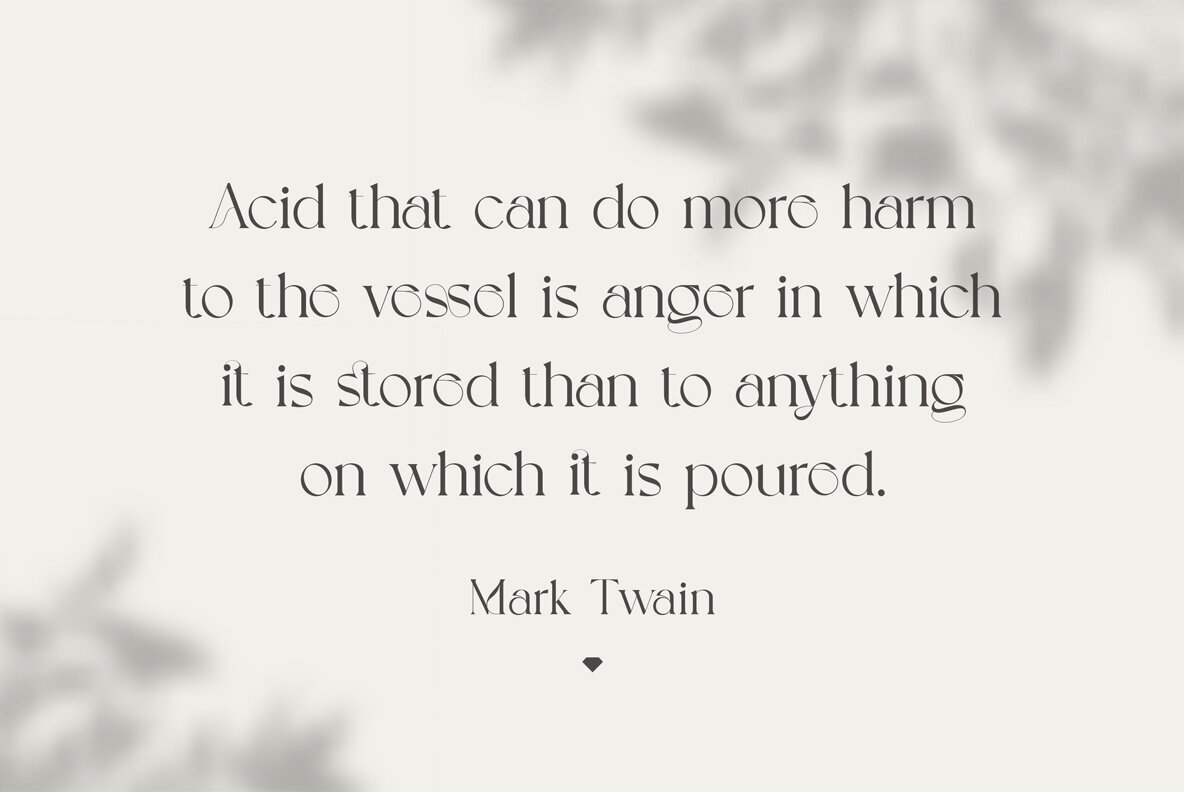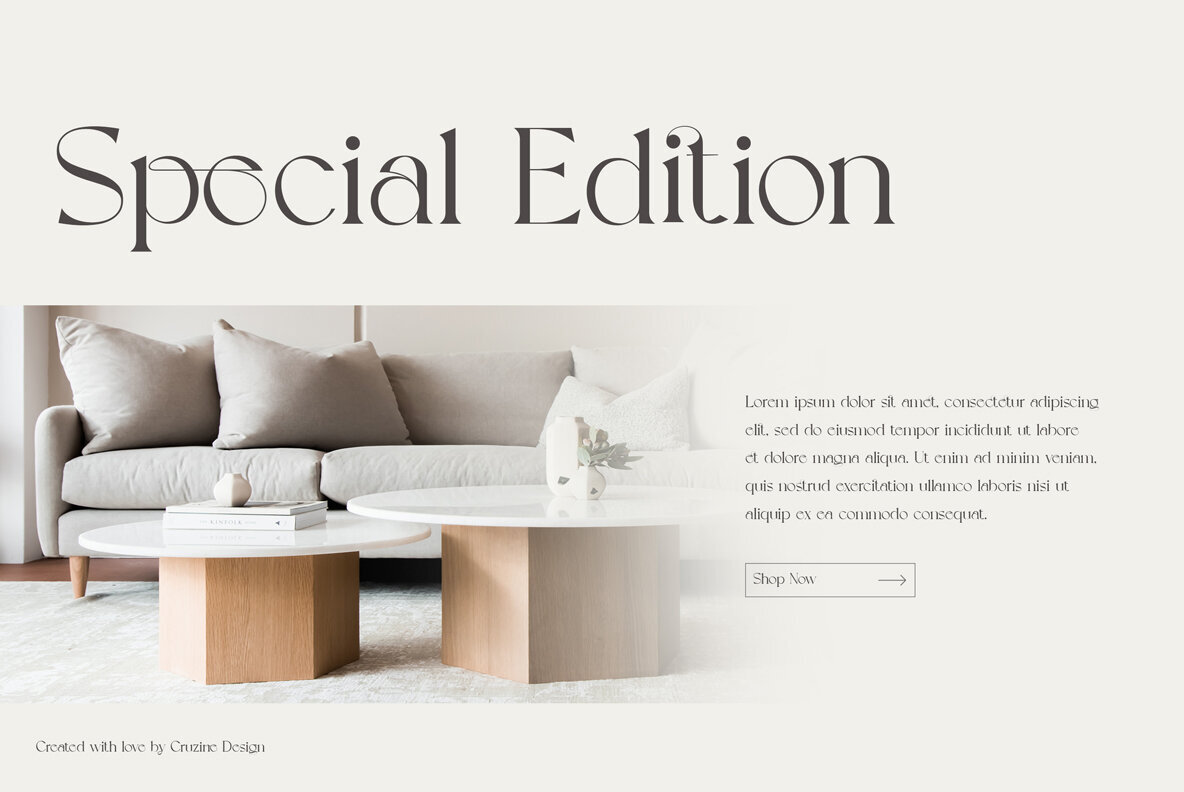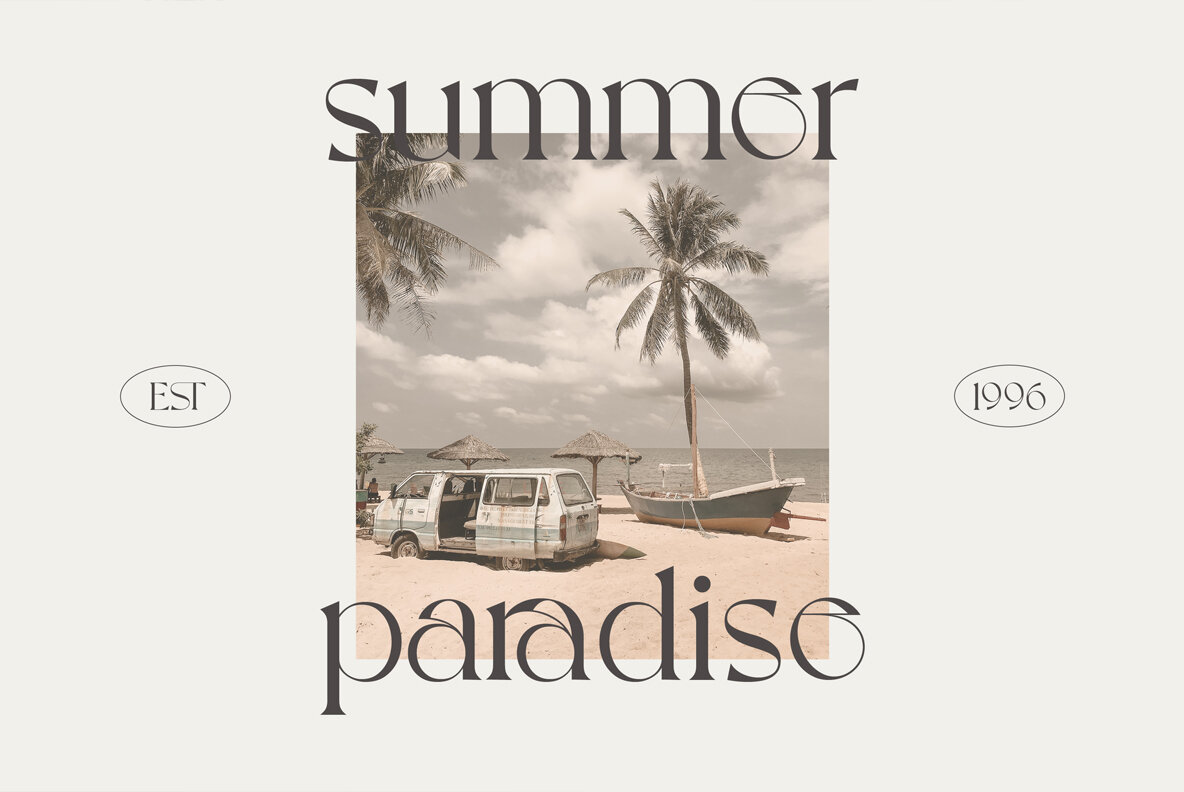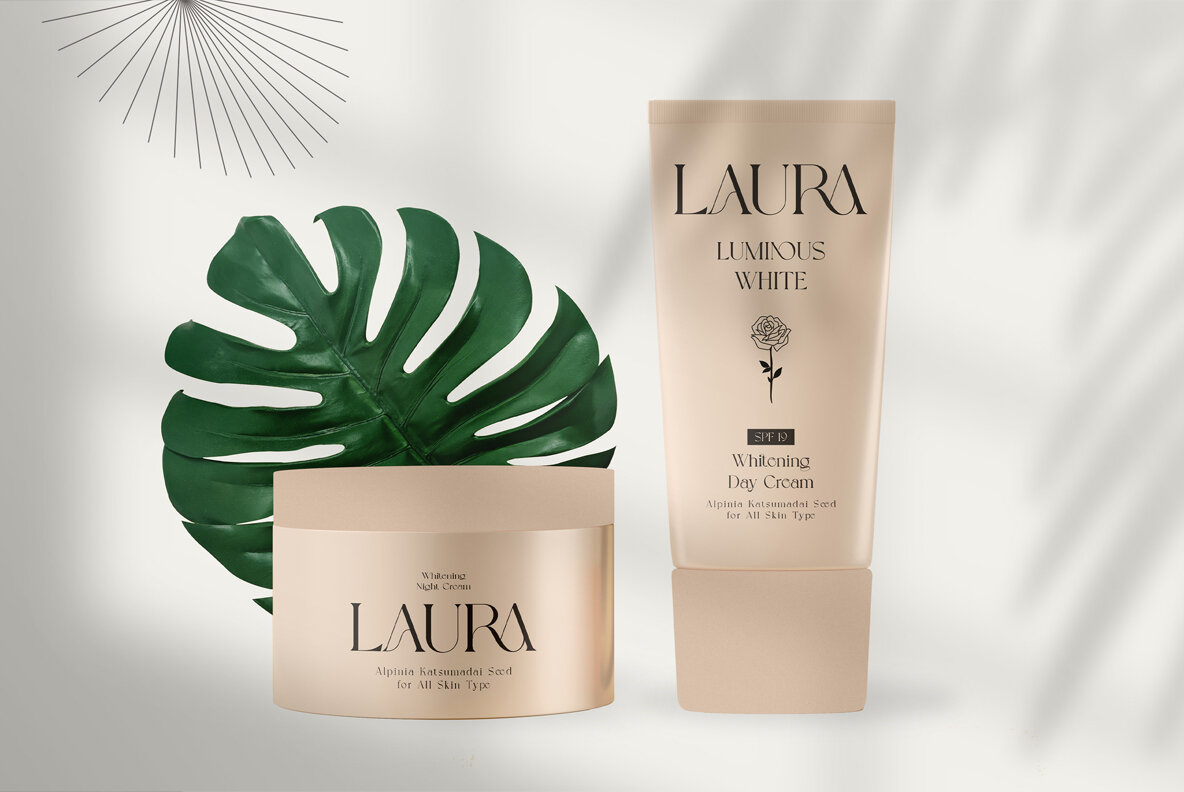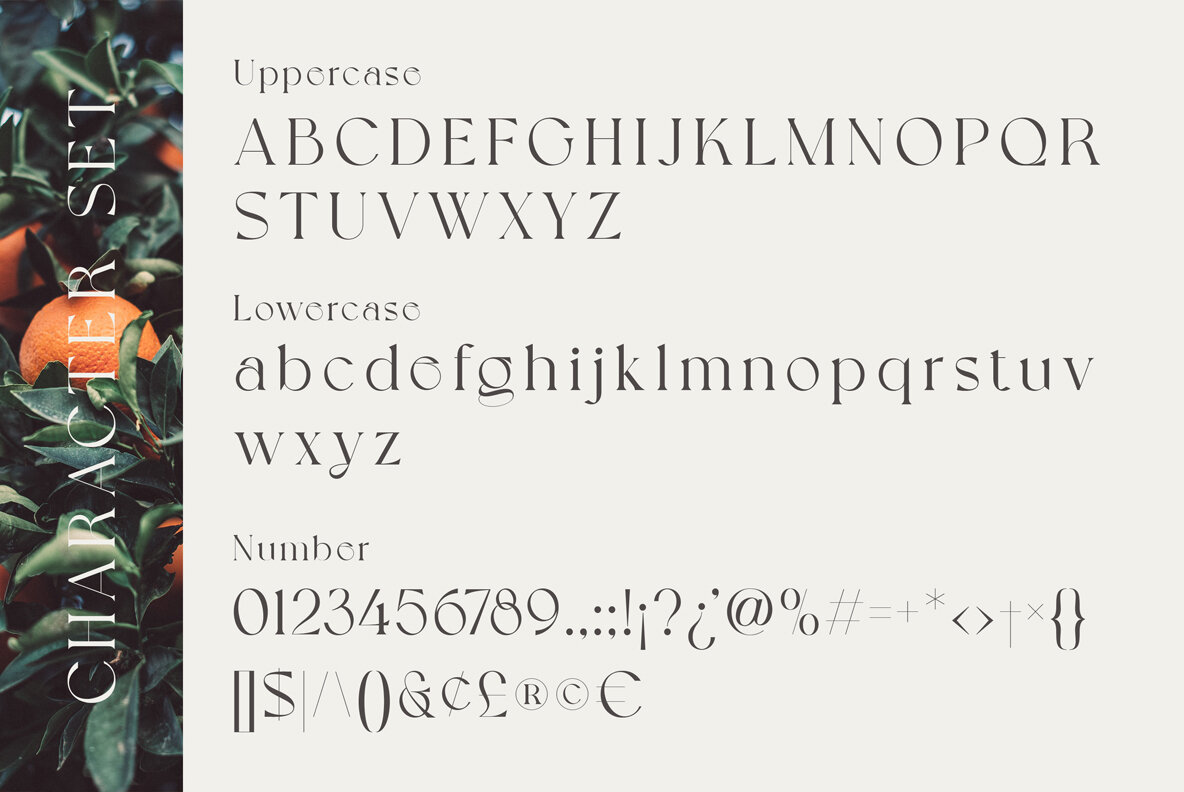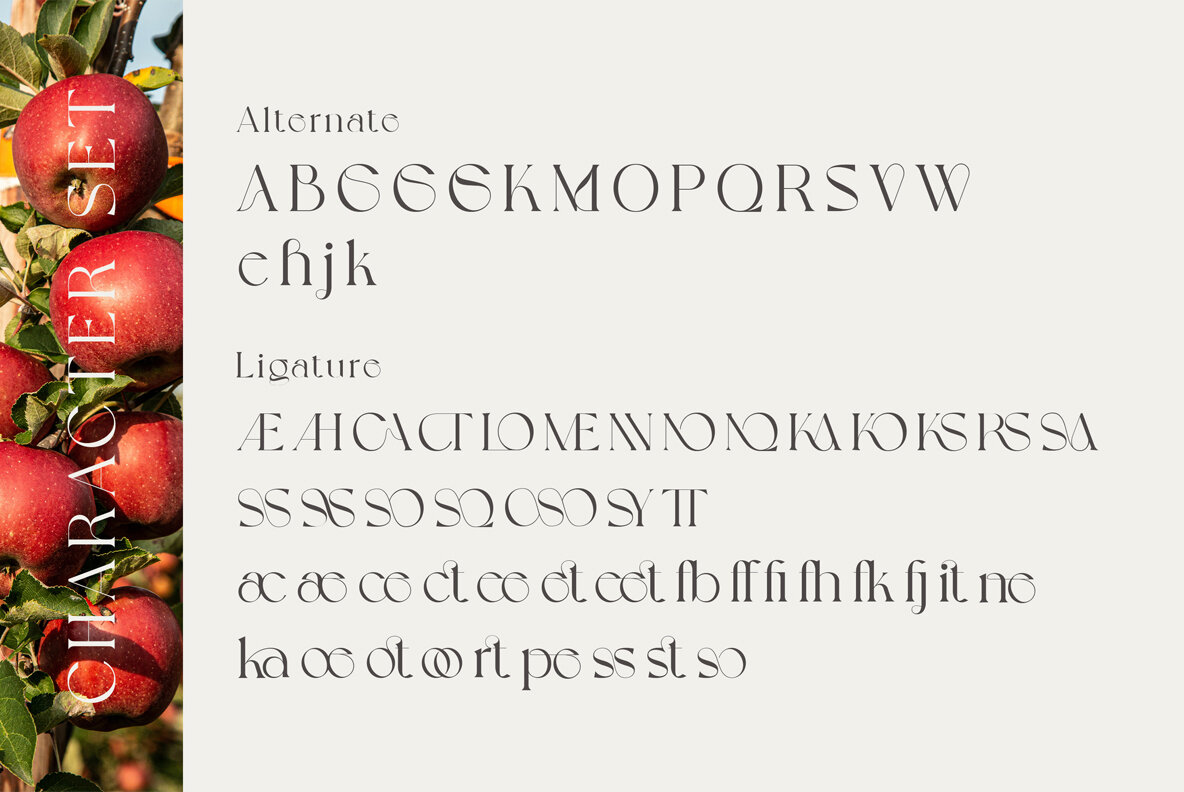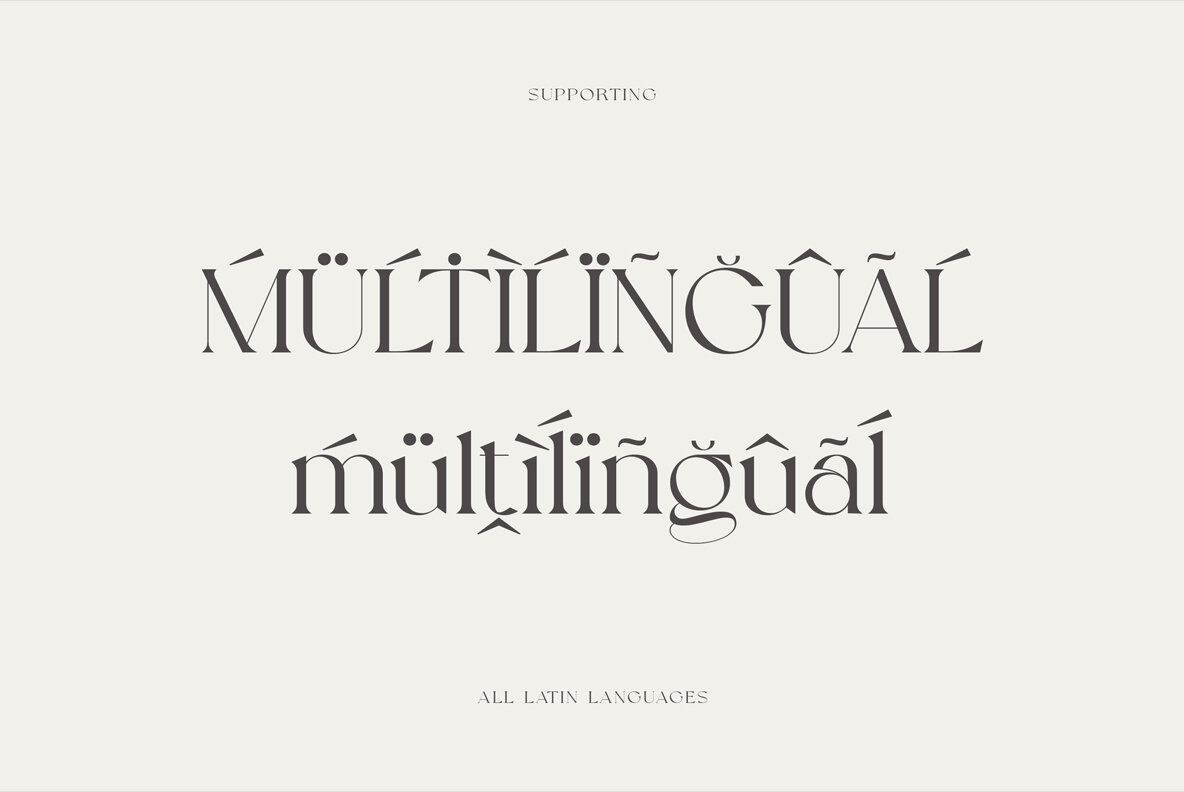
Grapevine Font
Welcome to idea-sparking magic of Grapevine – a creative and versatile font that can bring the right touch of elegance and modernity to your branding projects with ease. Designed with care, this modern serif font will be the perfect fit for any project that you have in mind, be it a logo design, website header or more. Straight from the moment you include it to your team, this font is sure to enchant you with its classic style - yet still very trendy - and lovingly crafted set of alternates and ligatures. It's so easy to find just the right combination for your content! Plus its multilingual support provides even greater freedom. Whether you’re a graphic designer looking for just that right font or your design studio is ready to give new life to your branding projects, adding Grapevine into the mix will bring funkiness and style like never before! Try out Grapevine today and let its wonderful features take the lead.